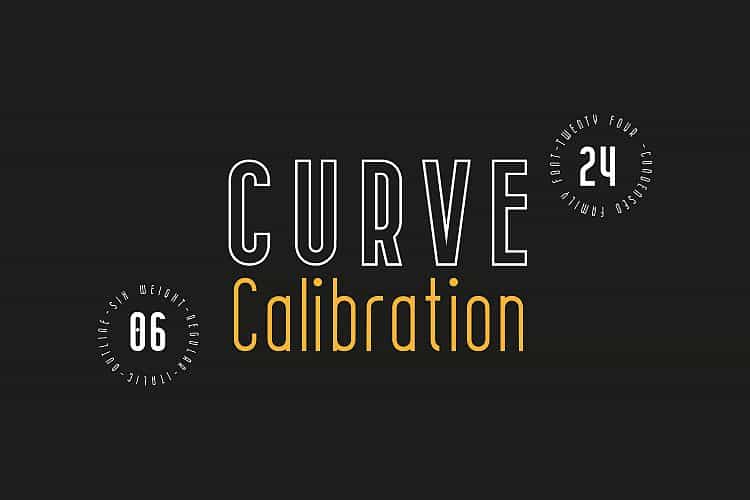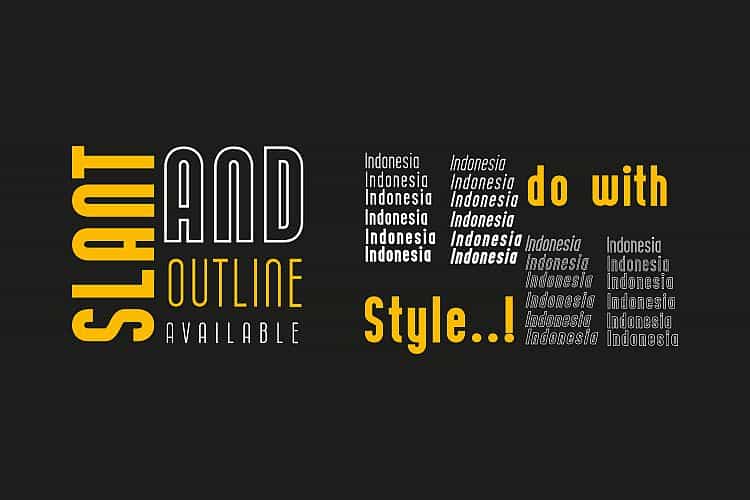
CURVE Calibration Font is a universal sans serif family. CURVE Calibration – This minimal font family has wide array, from italic to plain from bold to medium. This font family also have 24 font variations which are perfect for many kind of design purposes. The individually developed design of every glyph allows the font to be successfully used as a display font. It is crafted in a way for you to get the feel of the versatile design.